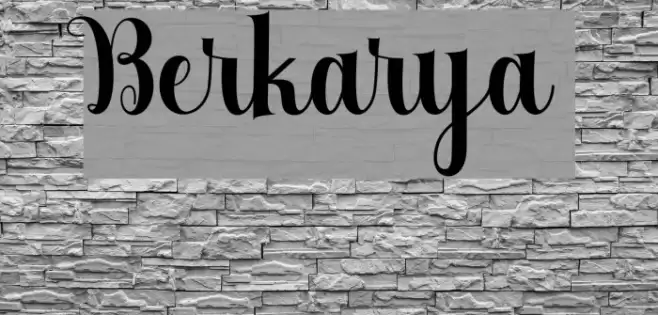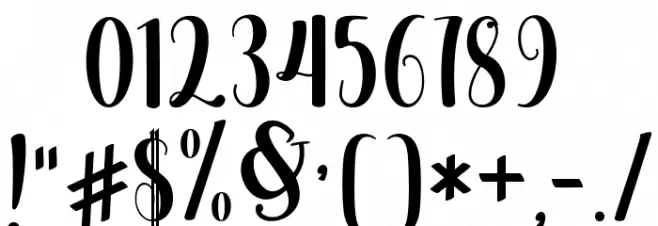
Berkarya Font
Berkarya Description
This font is a decorative and elegant script with a whimsical flair. The uppercase letters feature intricate swirls and loops, adding a touch of sophistication and playfulness. The lowercase letters maintain a consistent style, with smooth curves and a flowing appearance. The numerals are distinct and easy to read, while the special characters complement the overall aesthetic. This font is perfect for projects that require a touch of elegance and creativity, such as invitations, greeting cards, and branding materials.
A decorative script font with elegant swirls and playful loops from Uncategorized fonts.
- Proposed Projects: Ideal for wedding invitations, greeting cards, branding, and decorative signage.
- Use Case: Headlines, Logos, Invitations